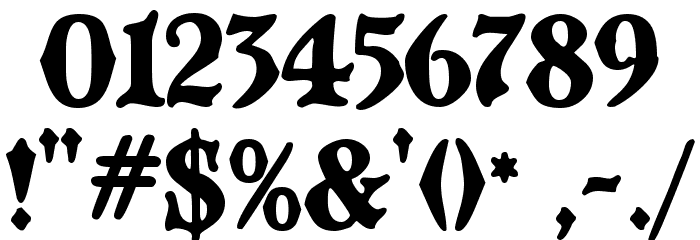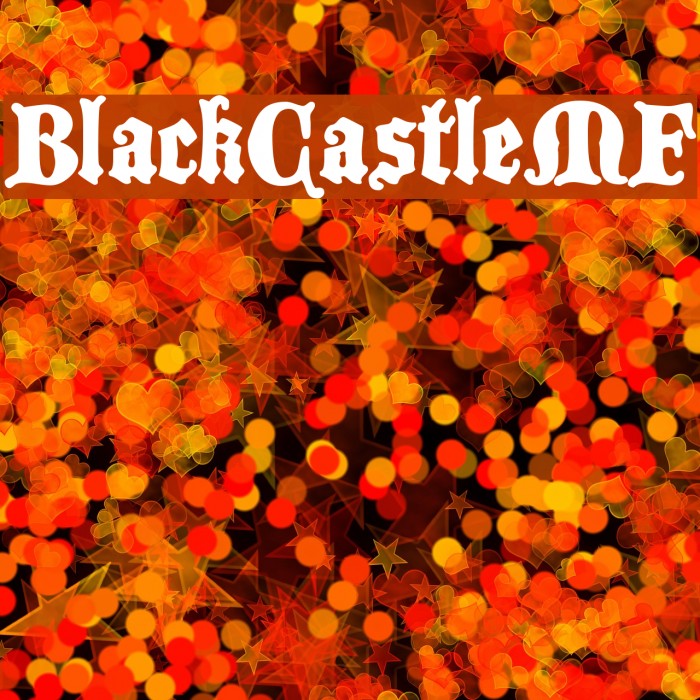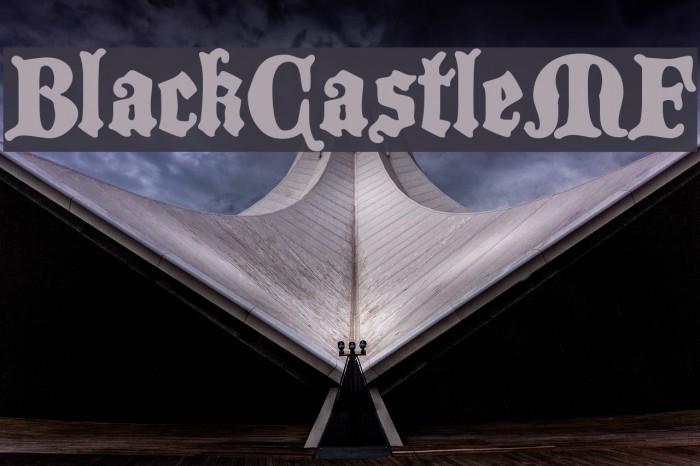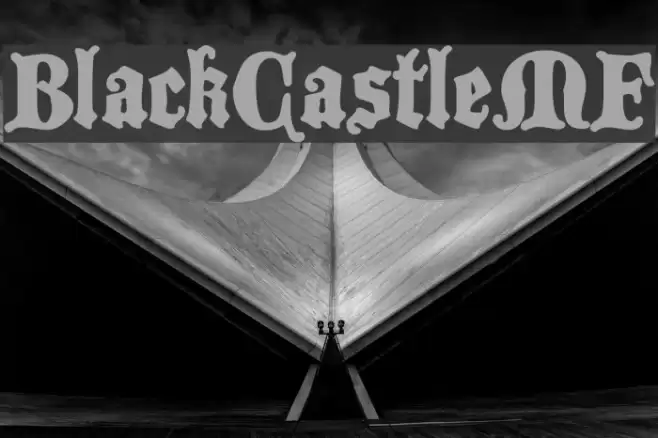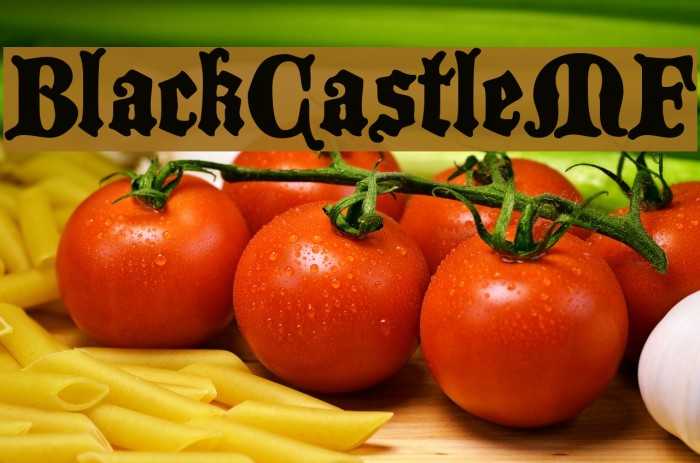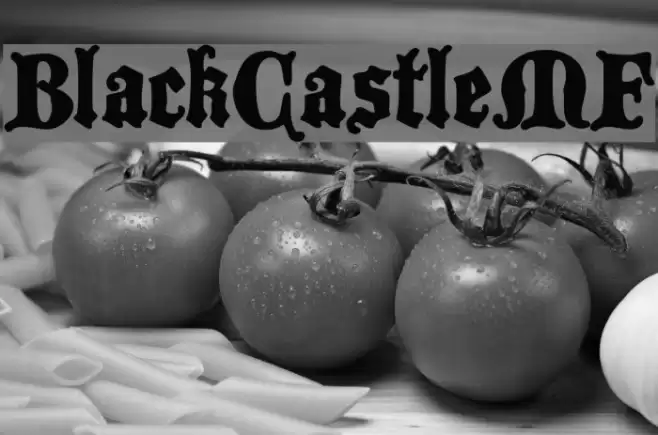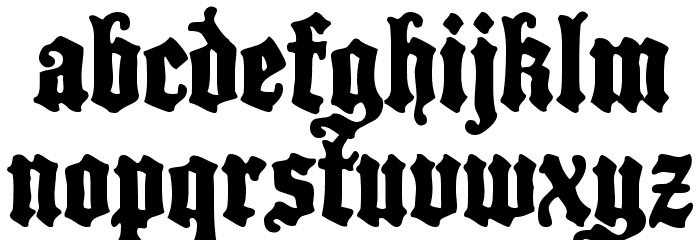
BlackCastleMF Font
✎ Gothic
BlackCastleMF Description
This font features a bold and dramatic style with intricate, sharp edges and flourishes reminiscent of medieval script. The uppercase letters are particularly ornate, with exaggerated serifs and decorative elements that give a sense of grandeur and historical significance. The lowercase letters maintain the same level of detail, ensuring consistency throughout the typeface. Numbers and special characters are designed with the same attention to detail, making them suitable for thematic designs. The overall appearance is striking and commands attention, making it ideal for projects that require a touch of elegance and historical flair.
| Overall Style | Vintage |
| Use Case | Logos, Headlines, Decorative text |
| Proposed Projects | Ideal for historical-themed designs, book covers, posters, and branding that requires a medieval or gothic touch. |